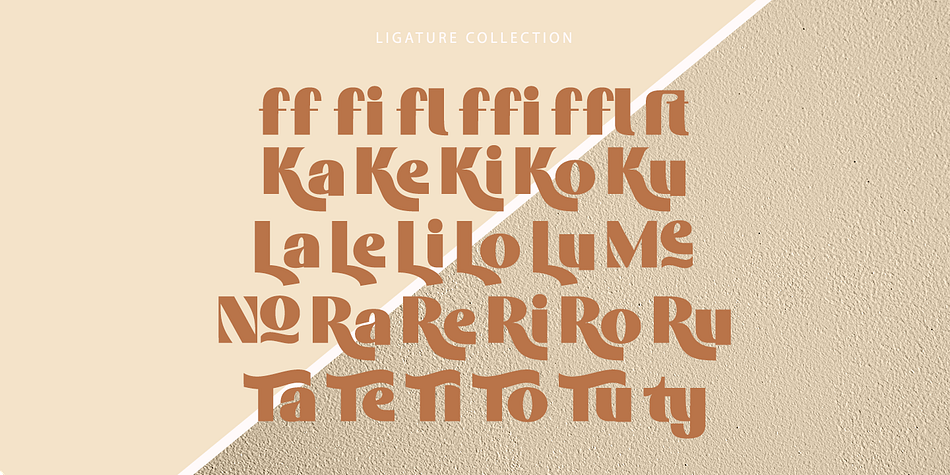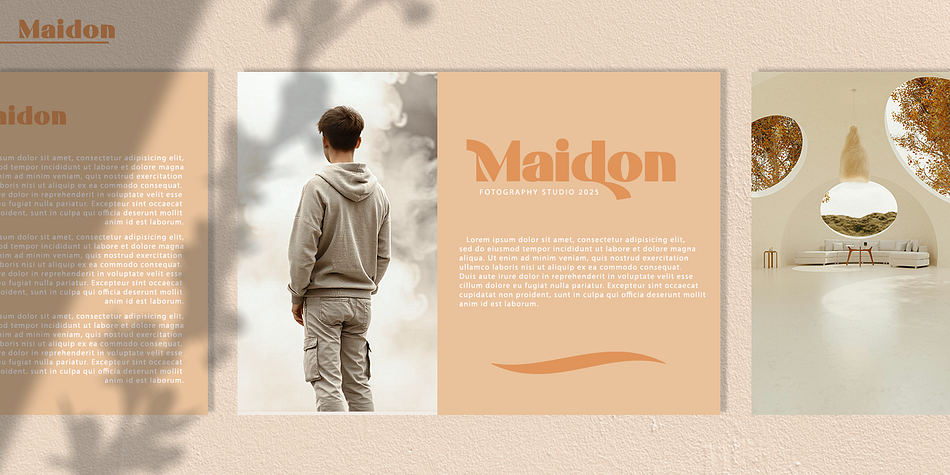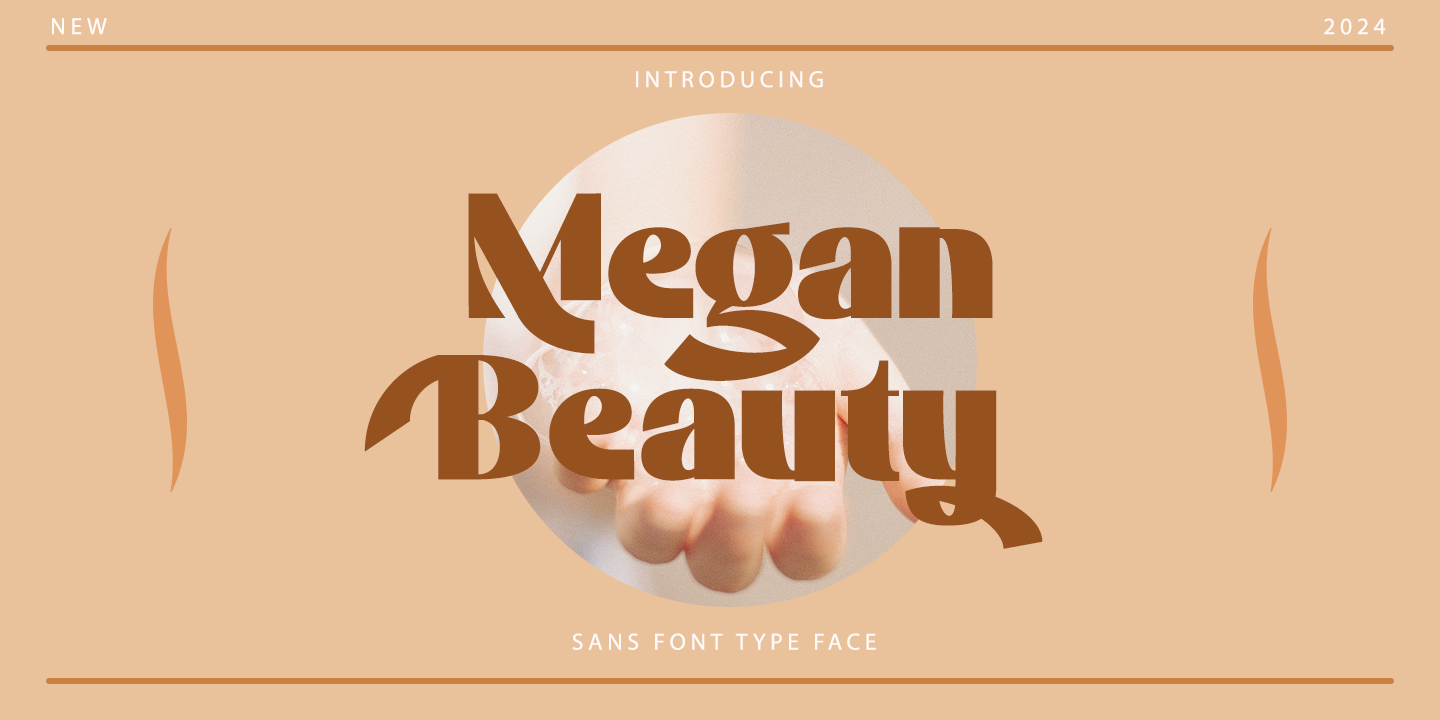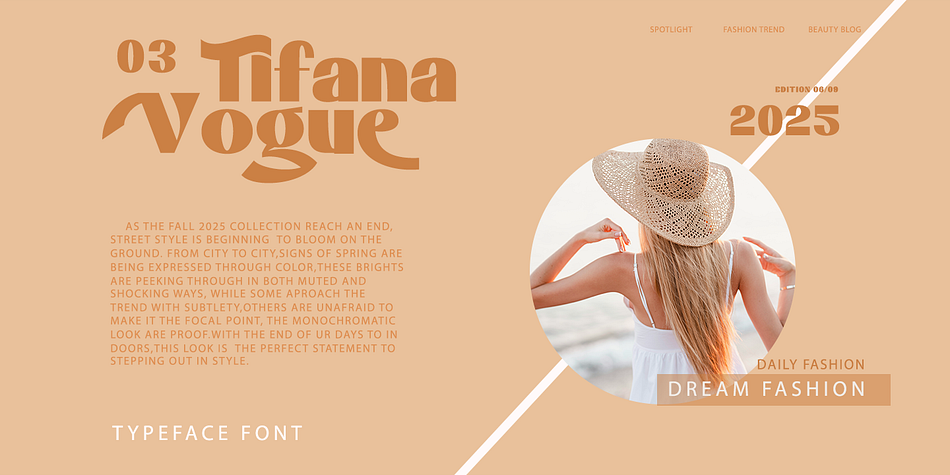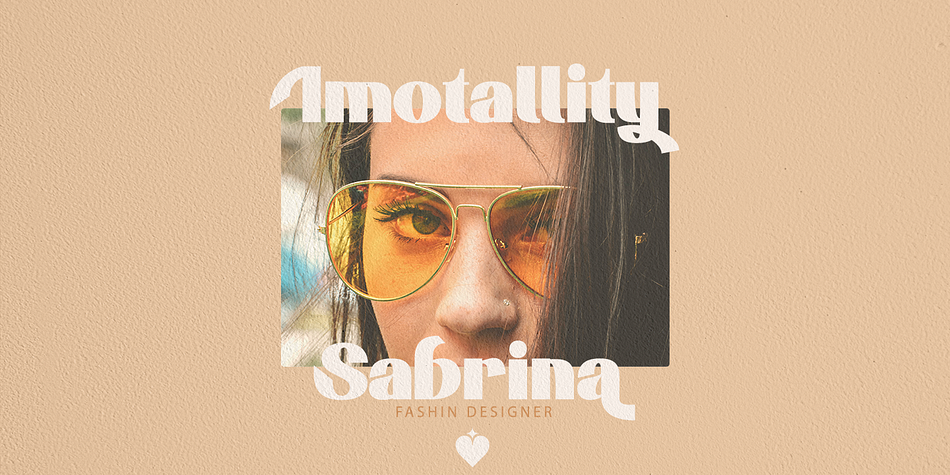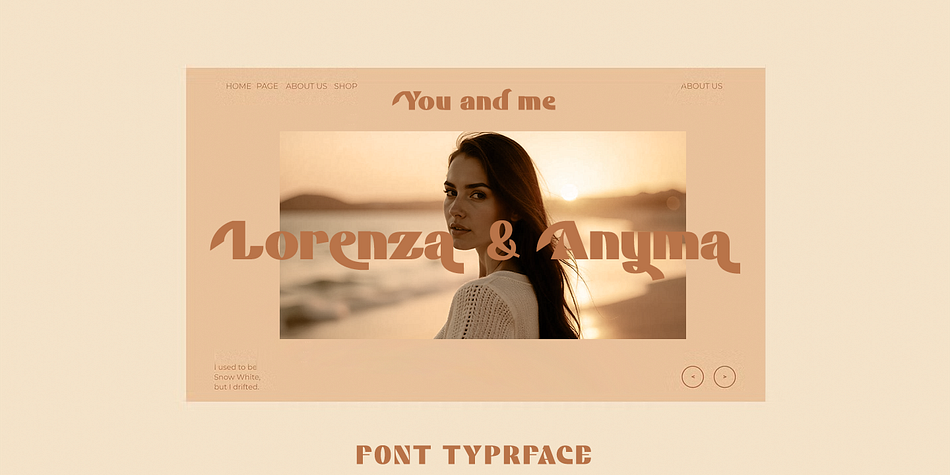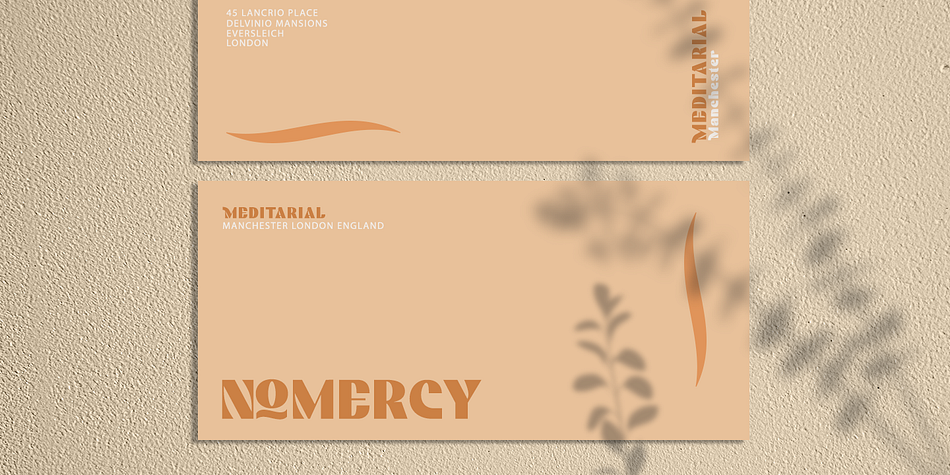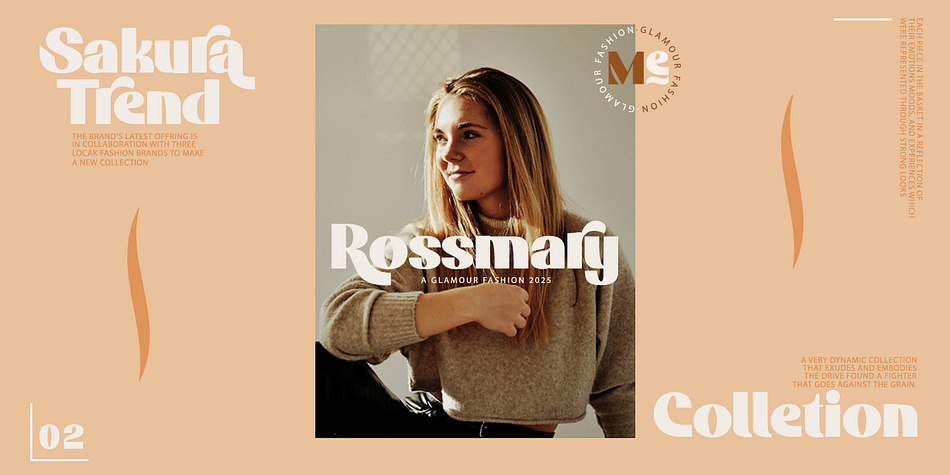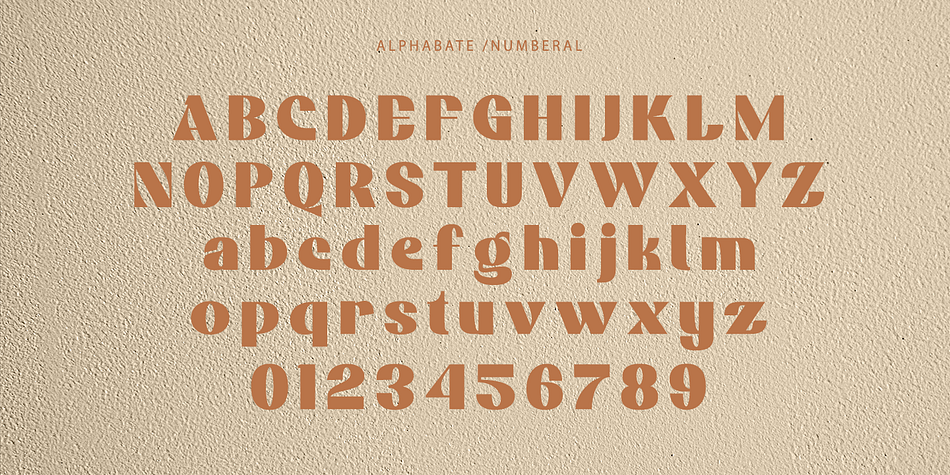
Megan Beauty
Megan Beauty is a sans serif font family published by Gatype.
Megan Beauty is a modern Display Sans font type face packaged in a modern and classy style, complete with your OpenType feature access to access a large selection of alternative fonts and bindings, the choice of fonts you like from large and small font variations for a luxurious and elegant look.
Designers: khaidir